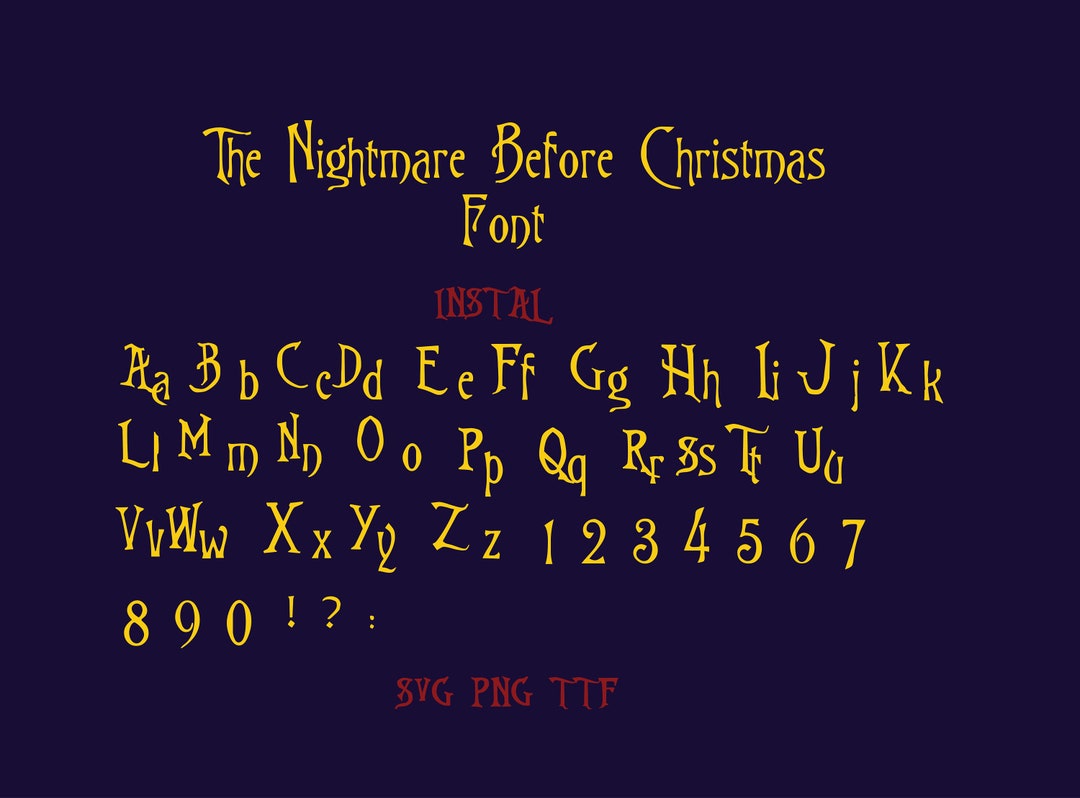
Nightmare Before Christmas Font . Nightmare before christmas font is well laced with quality and is from disney company, designed by filmfonts and can be downloaded for free with limited use. This font is inspired by the horror movie and has a scary and gothic style. Learn how to use it for your projects, create custom fonts with the generator, and see faqs. Download nightmare before christmas font, a tim burton font inspired by the film of the same name. Other users suggest burton's nightmare and. Download the font for free or embed the image on the web with the text generator. Create and download custom fonts inspired by the movie title of the nightmare before christmas. Nightmare before christmas has been downloaded 414,909 times. Choose from different fonts, styles, colors and. A user asks for similar fonts to the one used in the movie a nightmare before christmas. Create text graphics with nightmare before christmas font, inspired by the stop motion film by henry selick.
Nightmare before christmas has been downloaded 414,909 times. Create text graphics with nightmare before christmas font, inspired by the stop motion film by henry selick. This font is inspired by the horror movie and has a scary and gothic style. Download nightmare before christmas font, a tim burton font inspired by the film of the same name. Create and download custom fonts inspired by the movie title of the nightmare before christmas. A user asks for similar fonts to the one used in the movie a nightmare before christmas. Learn how to use it for your projects, create custom fonts with the generator, and see faqs. Nightmare before christmas font is well laced with quality and is from disney company, designed by filmfonts and can be downloaded for free with limited use. Other users suggest burton's nightmare and. Download the font for free or embed the image on the web with the text generator.
Nightmare Before Christmas Font Create text graphics with nightmare before christmas font, inspired by the stop motion film by henry selick. Download nightmare before christmas font, a tim burton font inspired by the film of the same name. Nightmare before christmas has been downloaded 414,909 times. Nightmare before christmas font is well laced with quality and is from disney company, designed by filmfonts and can be downloaded for free with limited use. Create text graphics with nightmare before christmas font, inspired by the stop motion film by henry selick. Download the font for free or embed the image on the web with the text generator. Create and download custom fonts inspired by the movie title of the nightmare before christmas. Learn how to use it for your projects, create custom fonts with the generator, and see faqs. This font is inspired by the horror movie and has a scary and gothic style. Choose from different fonts, styles, colors and. Other users suggest burton's nightmare and. A user asks for similar fonts to the one used in the movie a nightmare before christmas.
Nightmare Before Christmas Font Learn how to use it for your projects, create custom fonts with the generator, and see faqs. Nightmare before christmas font is well laced with quality and is from disney company, designed by filmfonts and can be downloaded for free with limited use. Download nightmare before christmas font, a tim burton font inspired by the film of the same name.. Nightmare Before Christmas Font.
Nightmare Before Christmas Font Download the font for free or embed the image on the web with the text generator. Other users suggest burton's nightmare and. Create text graphics with nightmare before christmas font, inspired by the stop motion film by henry selick. Create and download custom fonts inspired by the movie title of the nightmare before christmas. Download nightmare before christmas font, a. Nightmare Before Christmas Font.
The Nightmare Before Christmas Font SVG Ttf Otf Downloadable and Nightmare Before Christmas Font Other users suggest burton's nightmare and. Create text graphics with nightmare before christmas font, inspired by the stop motion film by henry selick. This font is inspired by the horror movie and has a scary and gothic style. A user asks for similar fonts to the one used in the movie a nightmare before christmas. Nightmare before christmas font is. Nightmare Before Christmas Font.
Nightmare Before Christmas Font Choose from different fonts, styles, colors and. Create text graphics with nightmare before christmas font, inspired by the stop motion film by henry selick. Nightmare before christmas font is well laced with quality and is from disney company, designed by filmfonts and can be downloaded for free with limited use. Create and download custom fonts inspired by the movie title. Nightmare Before Christmas Font.
Nightmare Before Christmas Font Easy Font Upload Easy Use Dxf, Eps, Svg Nightmare Before Christmas Font Create text graphics with nightmare before christmas font, inspired by the stop motion film by henry selick. Download nightmare before christmas font, a tim burton font inspired by the film of the same name. This font is inspired by the horror movie and has a scary and gothic style. Create and download custom fonts inspired by the movie title of. Nightmare Before Christmas Font.
The Nightmare before Christmas font SVG ttf otf Downloadable Etsy Nightmare Before Christmas Font Learn how to use it for your projects, create custom fonts with the generator, and see faqs. Create and download custom fonts inspired by the movie title of the nightmare before christmas. Download nightmare before christmas font, a tim burton font inspired by the film of the same name. Nightmare before christmas has been downloaded 414,909 times. This font is. Nightmare Before Christmas Font.
Nightmare Before Christmas Font Create text graphics with nightmare before christmas font, inspired by the stop motion film by henry selick. Nightmare before christmas has been downloaded 414,909 times. Choose from different fonts, styles, colors and. A user asks for similar fonts to the one used in the movie a nightmare before christmas. Other users suggest burton's nightmare and. Nightmare before christmas font is. Nightmare Before Christmas Font.
Nightmare Before Christmas Font Download nightmare before christmas font, a tim burton font inspired by the film of the same name. Nightmare before christmas has been downloaded 414,909 times. Download the font for free or embed the image on the web with the text generator. Create text graphics with nightmare before christmas font, inspired by the stop motion film by henry selick. Other users. Nightmare Before Christmas Font.